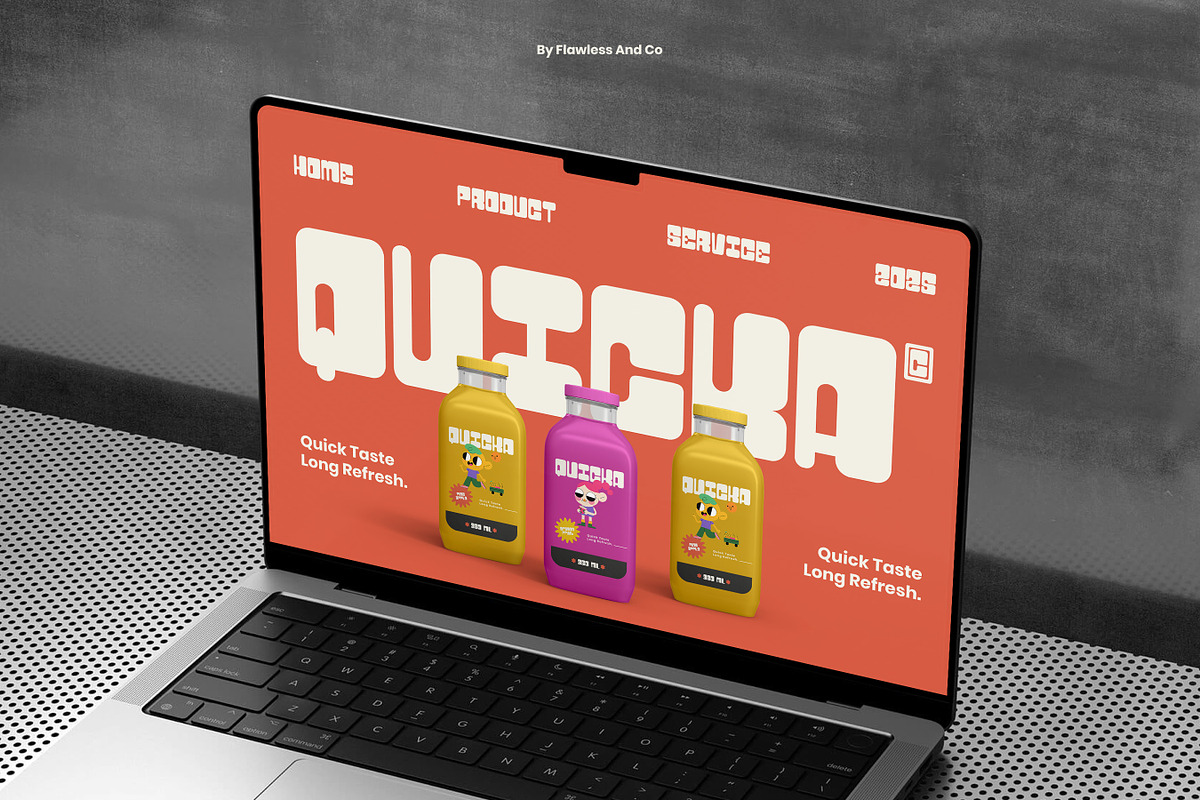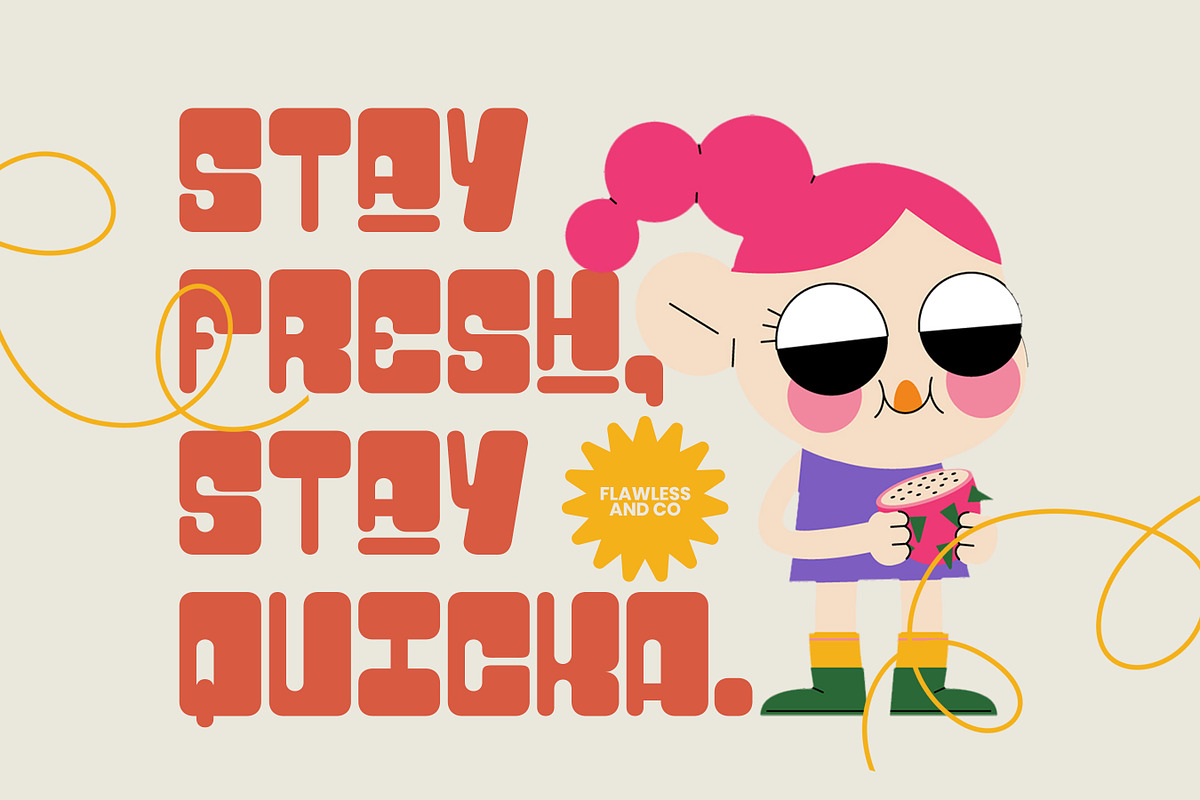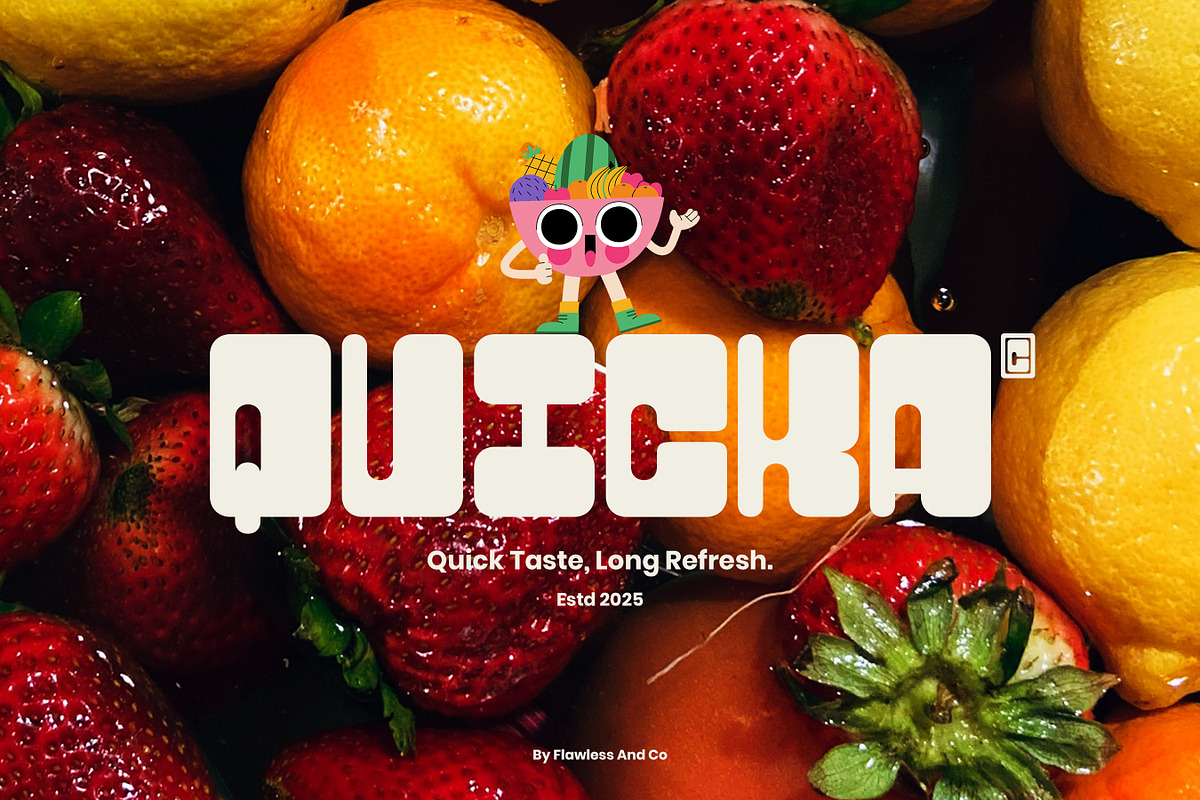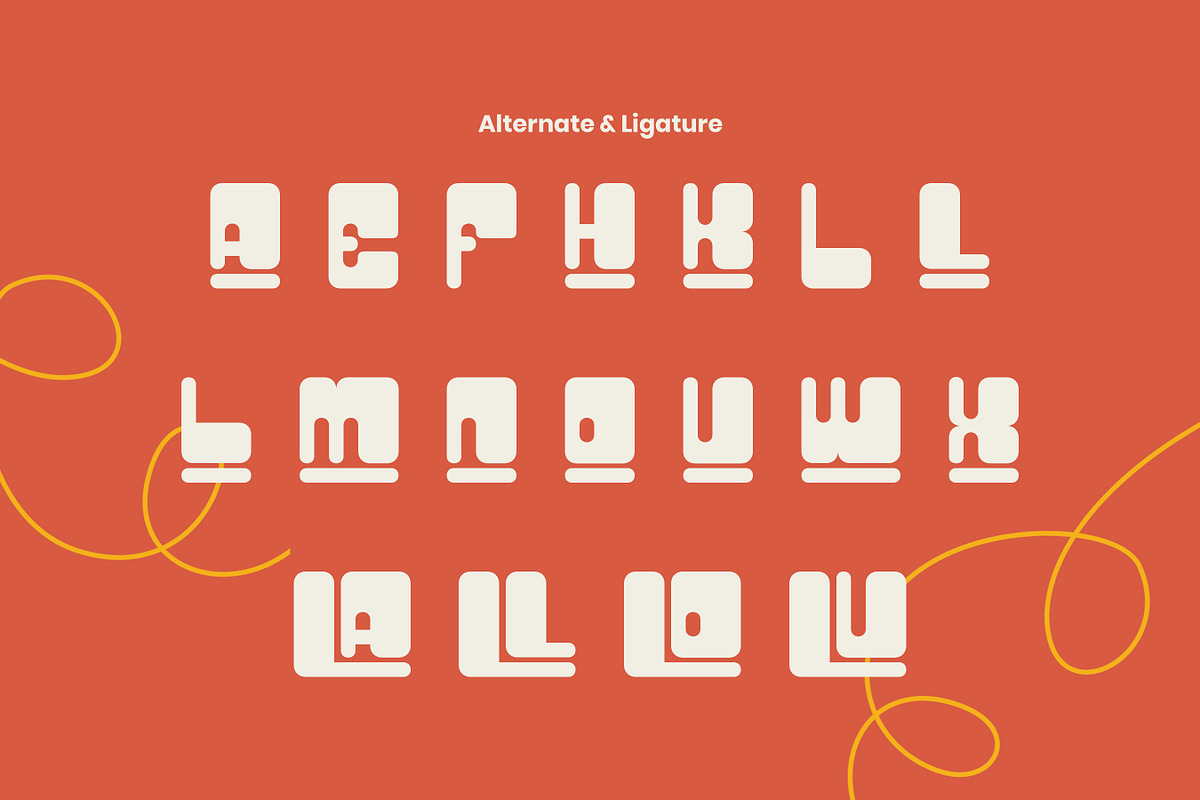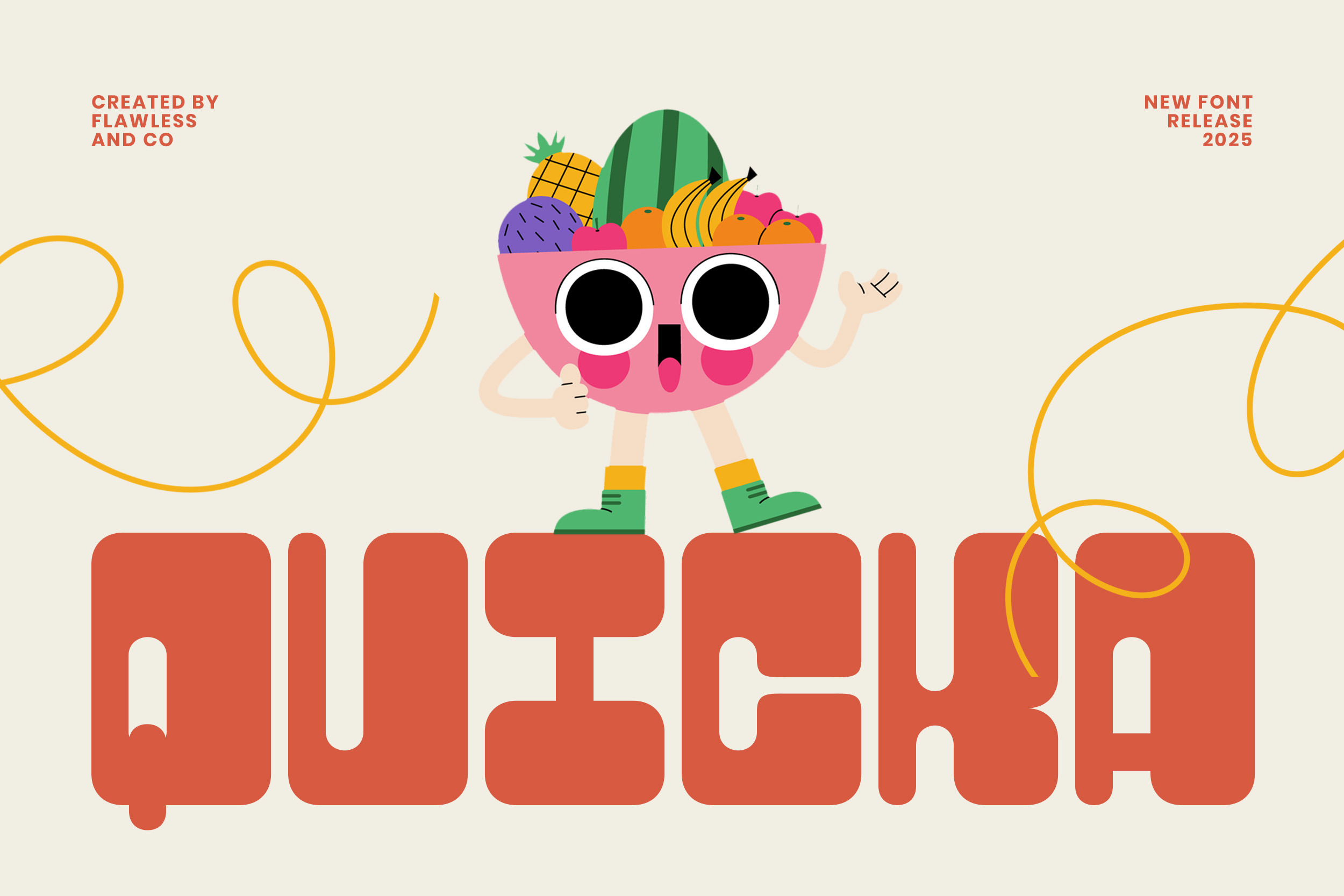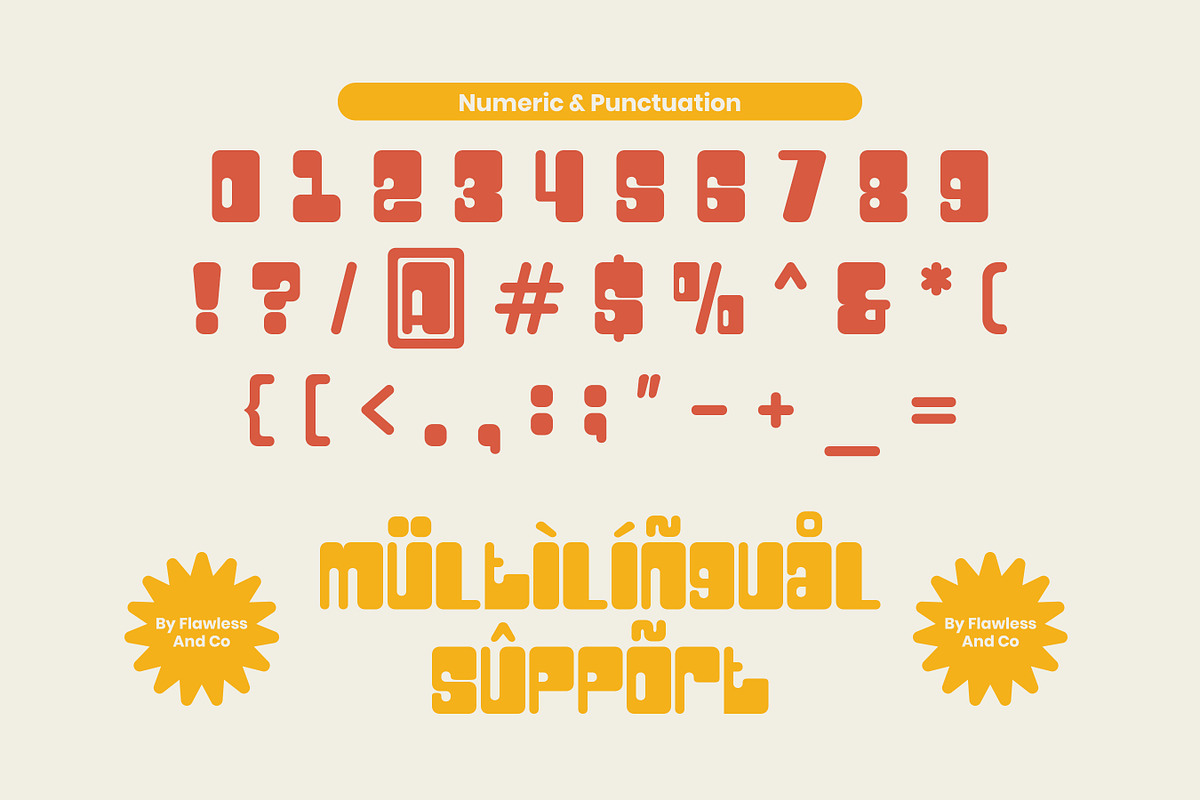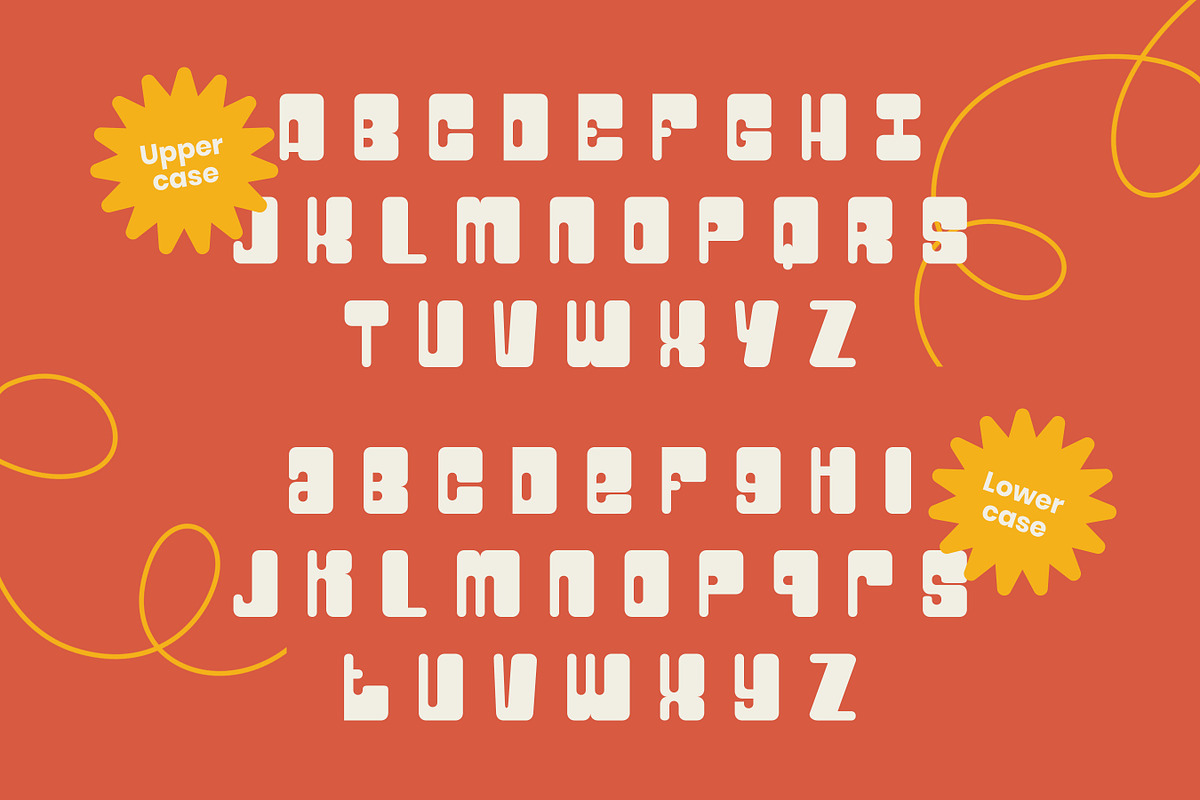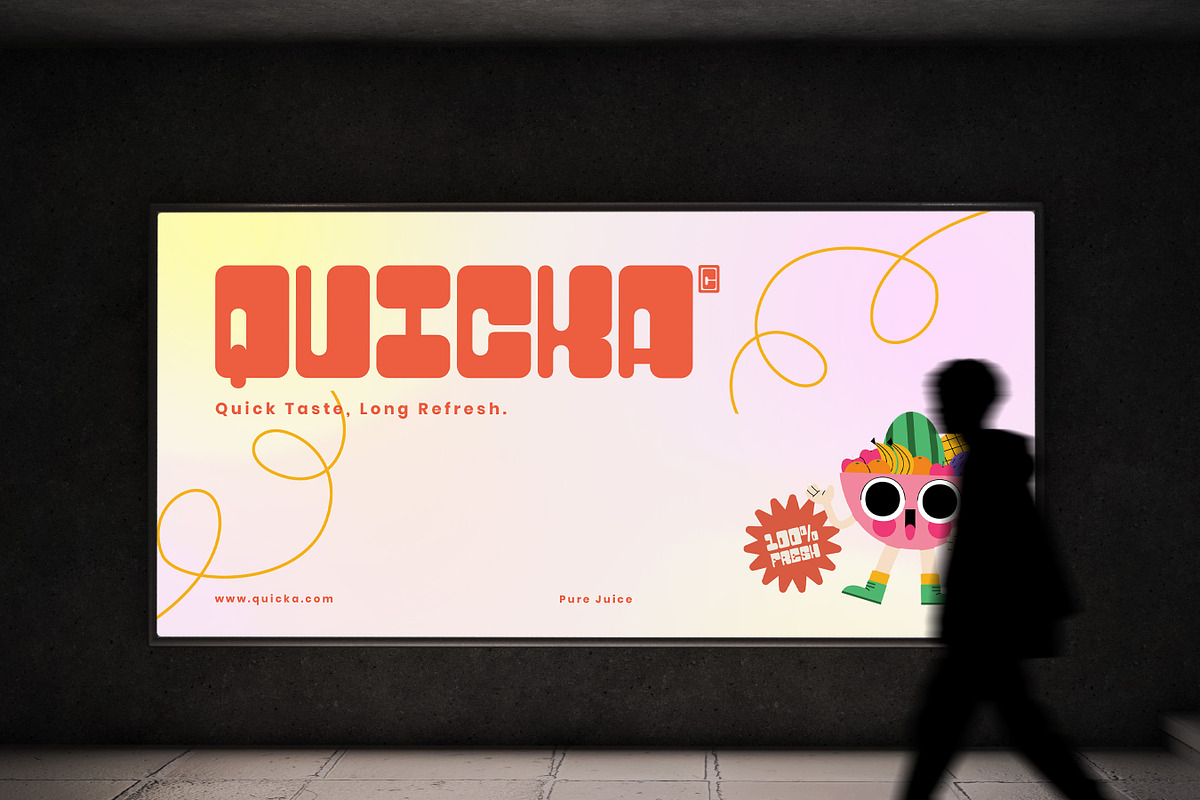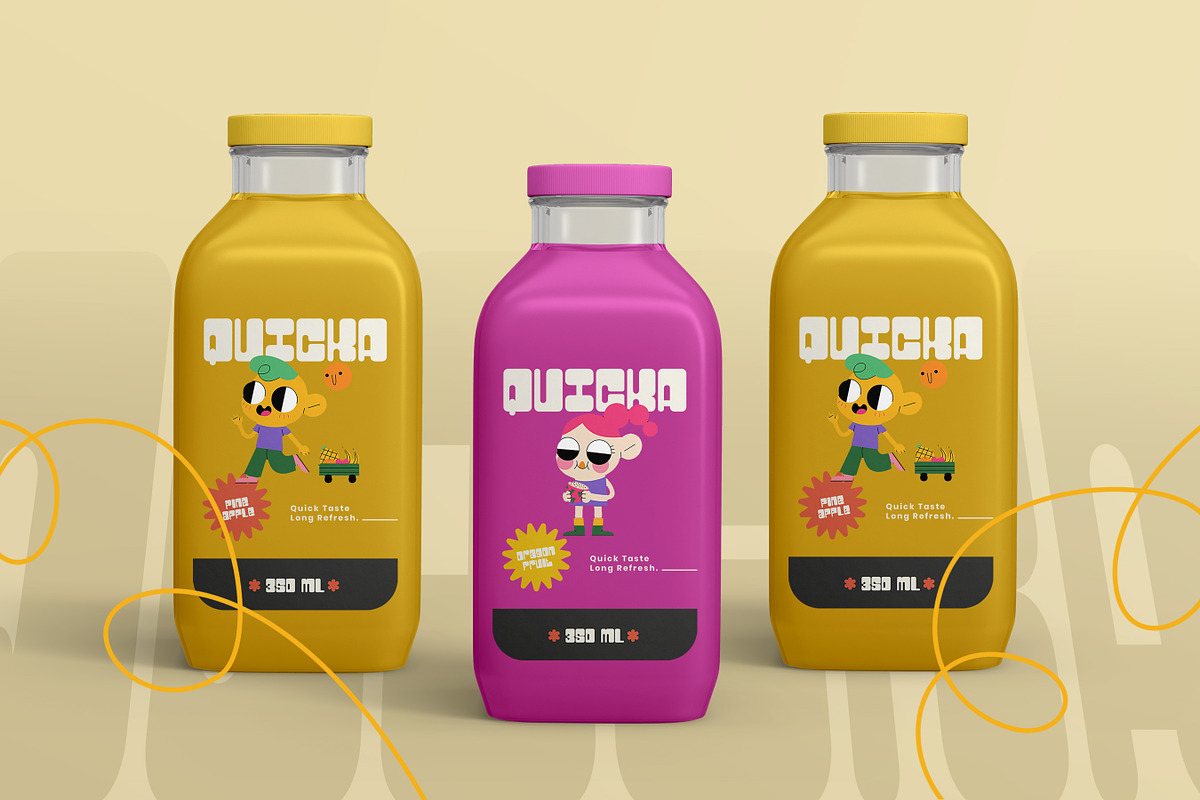
Quicka - Bold Display Sans Font
Quicka — Bold Display Sans Font
Introducing Quicka, a bold display sans font that bursts with fun, energy, and personality. Designed to grab attention instantly, Quicka combines chunky letterforms with smooth curves, making it the perfect choice for eye-catching headlines, playful branding, and modern logo design. Quicka brings a sense of joyful boldness — its geometric yet friendly shapes make every word look confident and expressive. Whether you’re designing packaging, posters, social media visuals, or children’s projects, Quicka adds a fresh, dynamic vibe that stands out effortlessly.
Who Should Use Quicka?
Quicka is made for designers and creators who love bold, playful, and eye-catching typography. If you want your design to radiate fun energy and confidence, this font is for you.
It’s perfect for:
- Brand designers who want to create logos that pop with personality.
- Packaging designers who need a font that feels fresh, friendly, and fun.
- Social media creators looking for a strong, cheerful headline typeface.
- Children’s product designers who want a playful yet clean look.
- Creative agencies aiming to build modern and memorable brand identities.
A Must-Have Font for "Brand and Logo" Creators and Designers
If you’re a brand or logo designer seeking a typeface that instantly grabs attention and adds character to your work, Quicka is the perfect choice. With its bold geometric shapes and playful personality, Quicka brings a sense of joy and confidence to every design. It’s a go-to font for creating modern logos, eye-catching packaging, and vibrant branding visuals that stand out effortlessly.
Why Choose Quicka for "Brand and Logo" Projects?
Because Quicka is made to stand out. Its bold, rounded forms and clean geometric construction give your design a friendly yet confident voice — perfect for brands that want to feel modern, fun, and memorable.
Suitable For:
- Logo and branding design
- Packaging and label design
- Poster and headline typography
- Children’s products and playful brand identities
- Merchandise and apparel design
- Social media graphics and marketing visuals
- Fun editorial titles and creative layouts
- Bold display typography for web and print